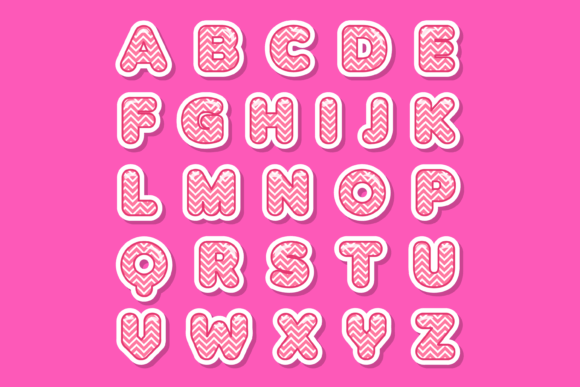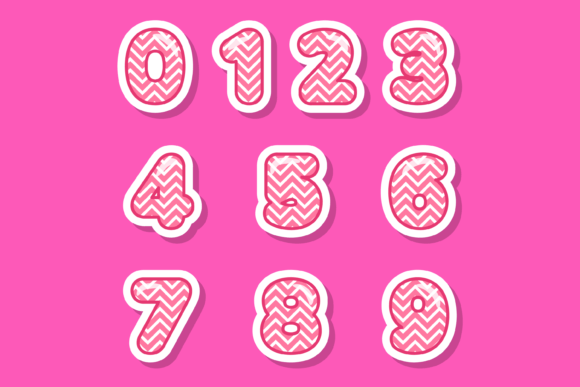
About Pink Zigzag Font
Pink Zigzag is a vibrant and energetic color font that adds a playful and stylish touch to your designs. Whether you’re working on custom designs, DIY crafts, or any creative project that calls for a lovely and eye-catching element, Pink Zigzag is an excellent choice that will make your creations truly stand out.
With its zigzag pattern and bold pink color, this font exudes a sense of movement and excitement. The dynamic nature of the zigzag design creates a visually striking effect, grabbing the attention of viewers and adding a lively element to your designs.
Pink Zigzag’s versatility allows it to shine in various applications. Whether you’re designing posters, invitations, social media graphics, or even creating personalized items, this font will add a touch of fun and vibrancy to your work, instantly making it eye-catching.
The font’s customizable features provide you with the flexibility to adjust the size, spacing, and color of the zigzag pattern, allowing for endless creative possibilities. Its PUA encoding ensures easy access to all the unique glyphs and ligatures, making it simple to incorporate into your designs.
Pink Zigzag’s color palette further enhances its visual impact. The bold and vibrant pink hue adds a sense of energy and excitement to your designs, making them visually appealing and engaging.
Whether you’re an experienced designer or a DIY enthusiast, Pink Zigzag offers an amazing opportunity to infuse your projects with a touch of creativity and a pop of color. Its dynamic design and vibrant pink hue make every letter a statement, ensuring that your designs leave a lasting impression.
Choose Pink Zigzag as your go-to color font and let its playful zigzag pattern and bold pink color bring a sense of fun and style to your creative endeavors. With this font, your designs will have a unique and captivating look, making it an amazing choice for any project that requires a lovely touch and a dash of vibrant flair.